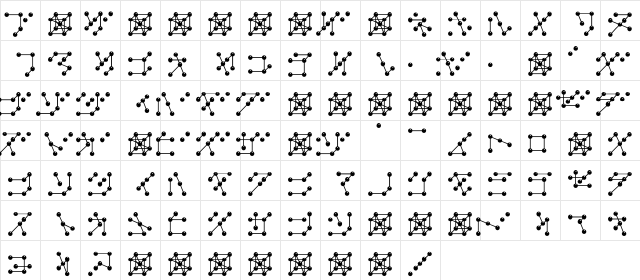
MetallicElement KanaClear Free Font
MetallicElement KanaClear
Style: KanaClear
MetallicElement Family
MetallicElement KanaClear
Design Context for MetallicElement
MetallicElement is a composed and adaptable typeface that performs quietly and consistently across a wide range of design contexts.